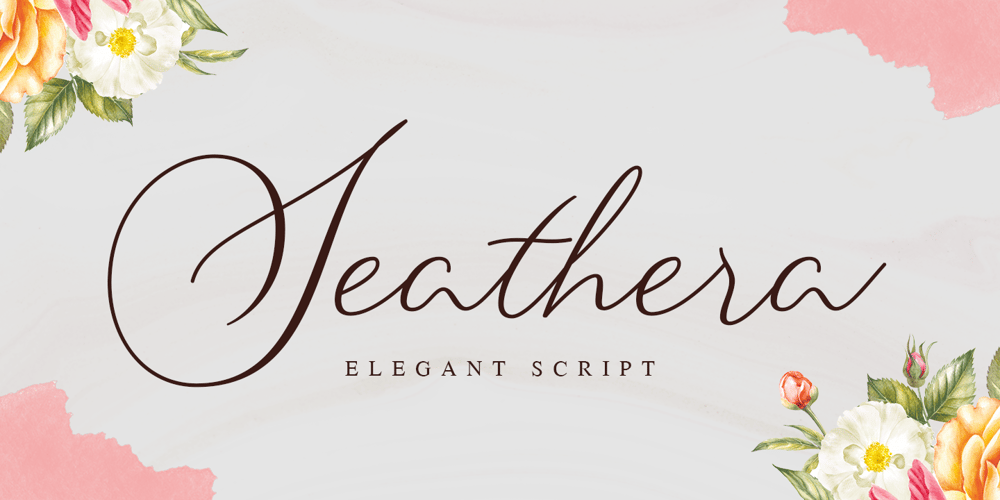
Seathera Font Family was designed by Abdul Malik Wisnu and published by Almarkha Type. Seathera contains 1 styles and family package options. Seathera is a beautiful script that feels classy, elegant, and modern. It is perfectly suited for a wide variety of projects!This font is PUA encoded which means you can access all of the magical glyphs and swashes with ease! It also features a wealth of special features including alternate glyphs and ligatures.Thank you